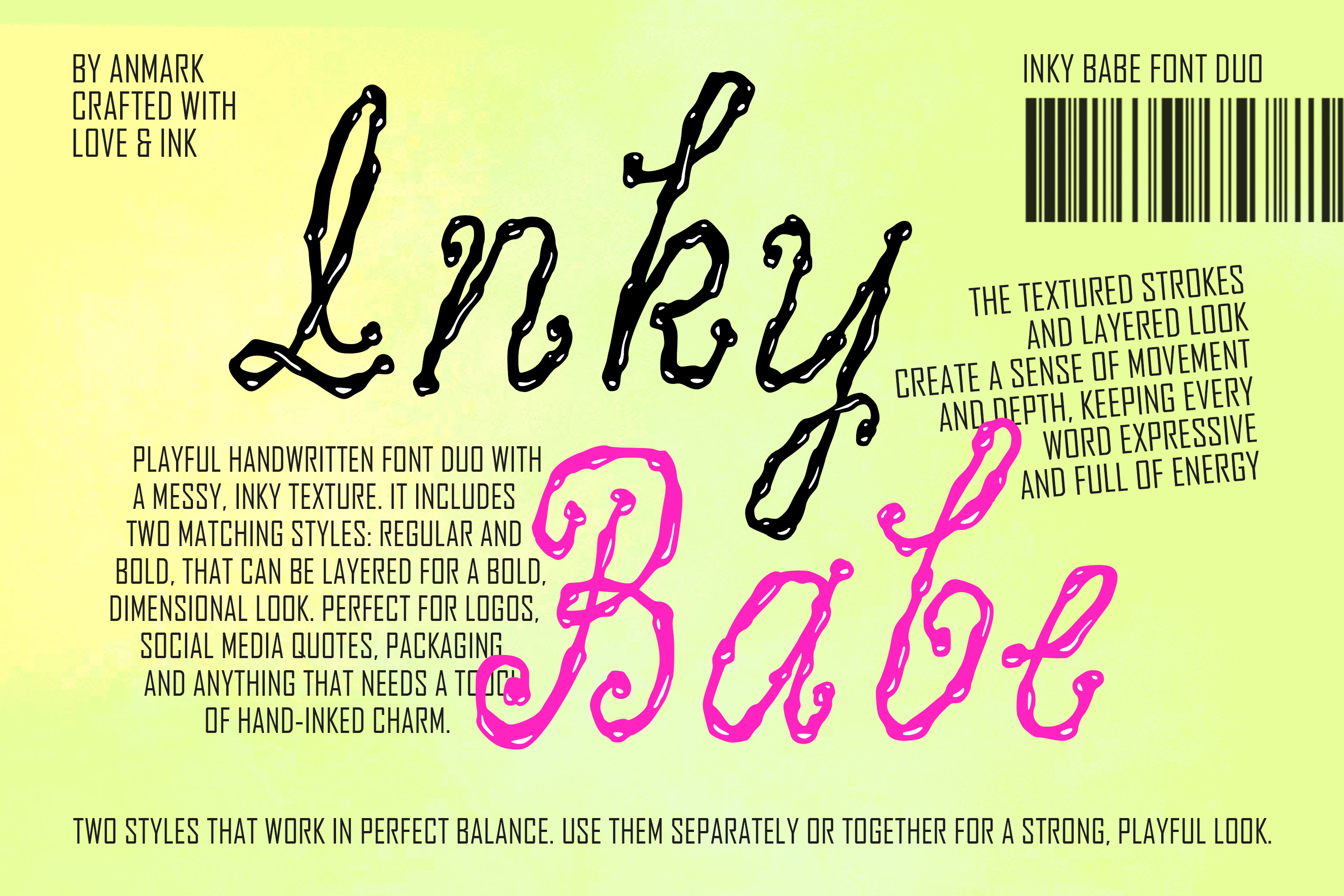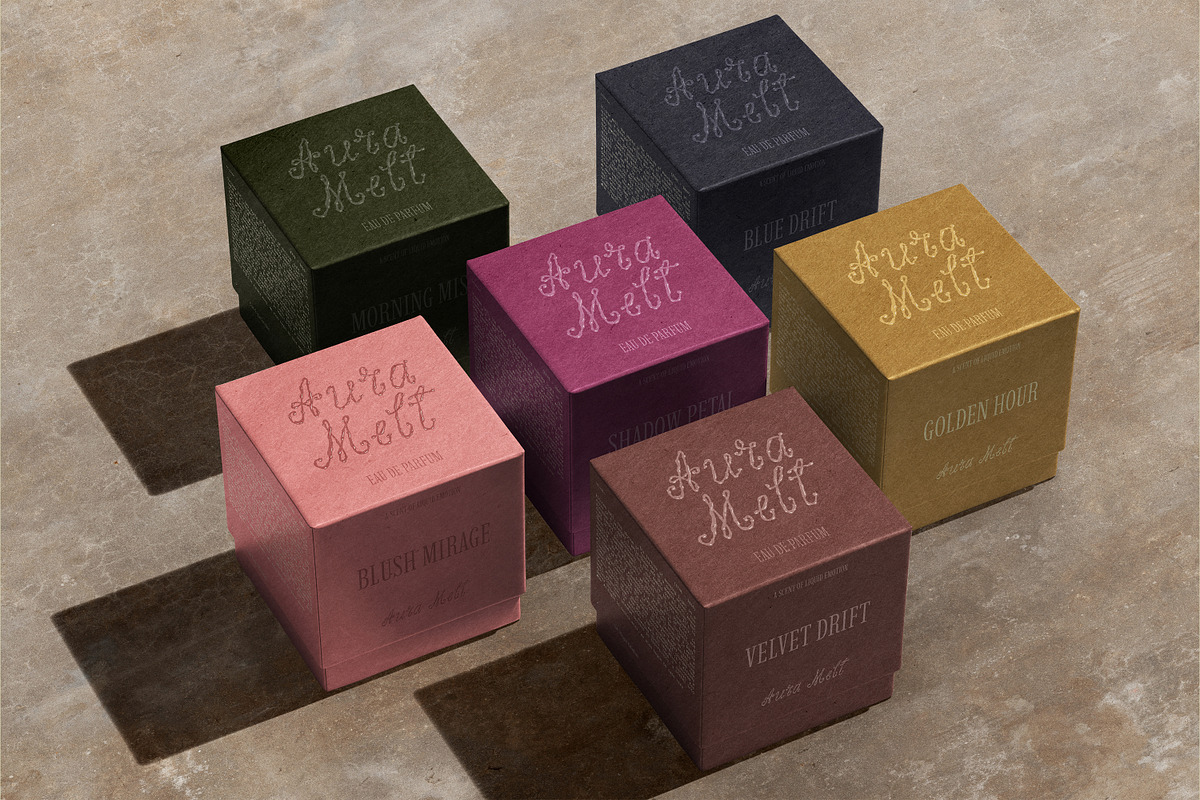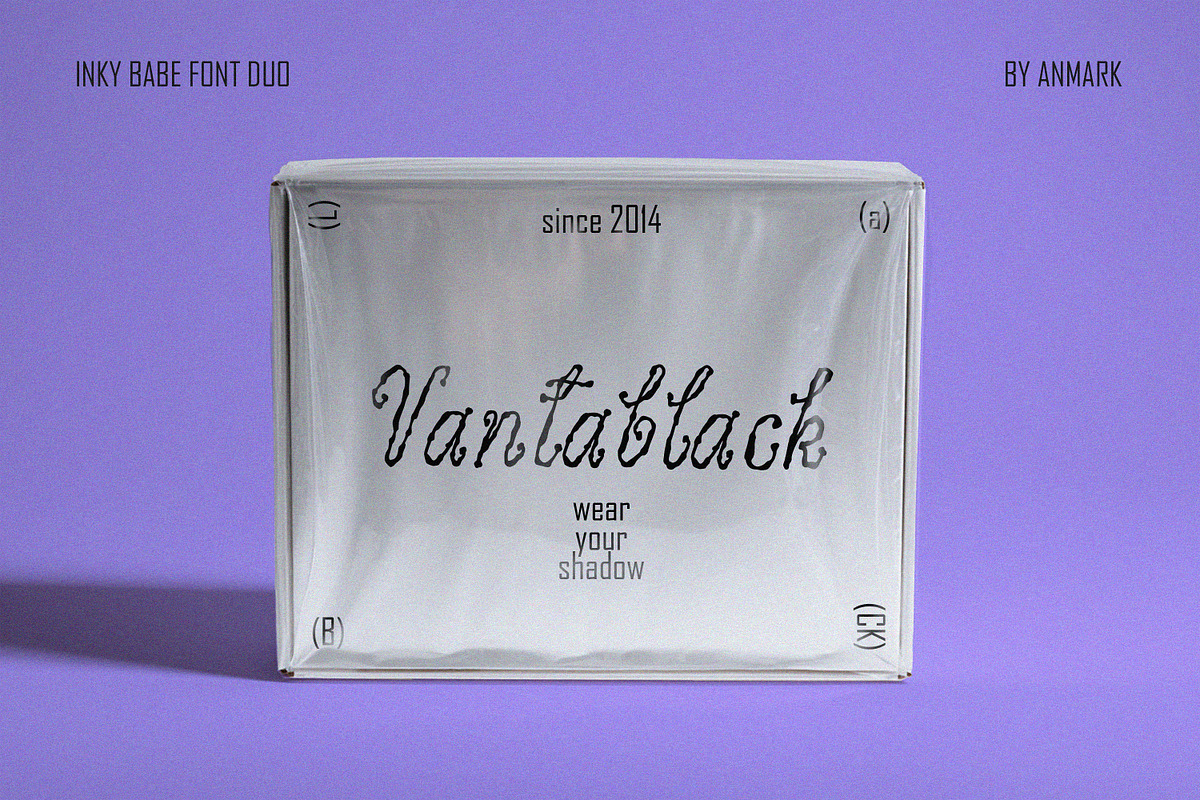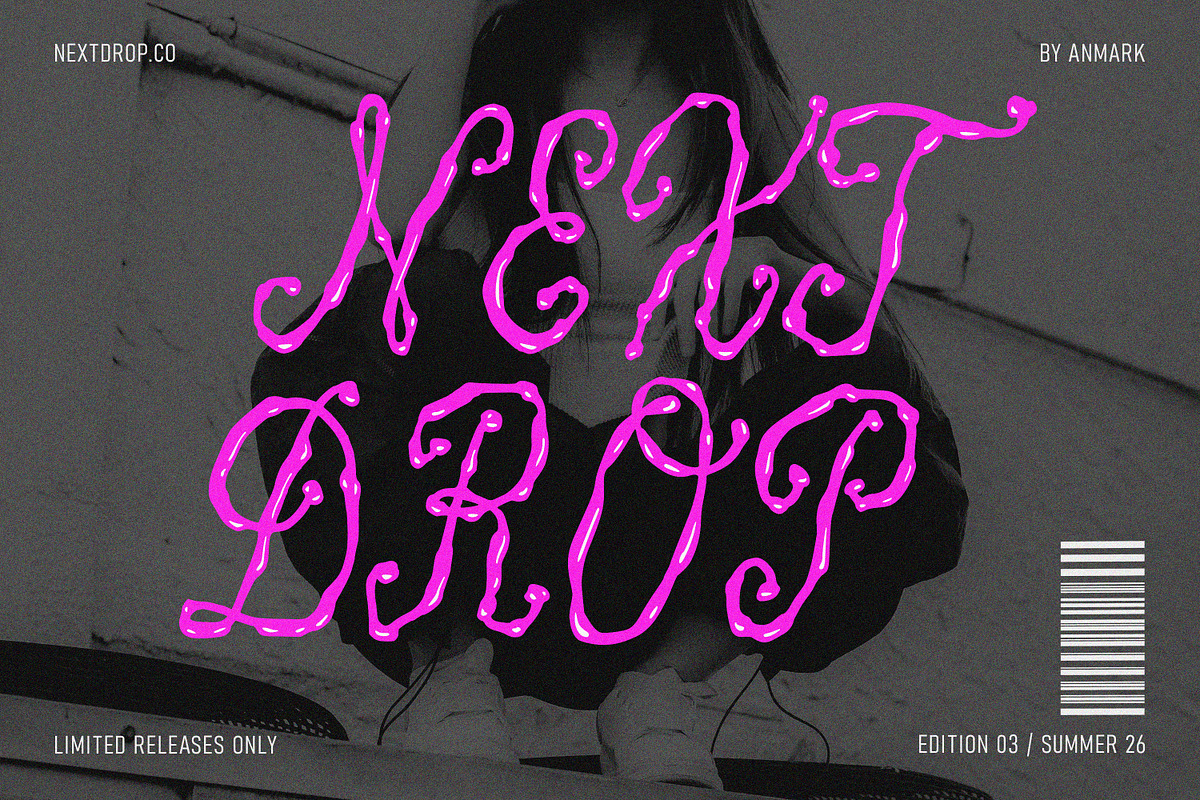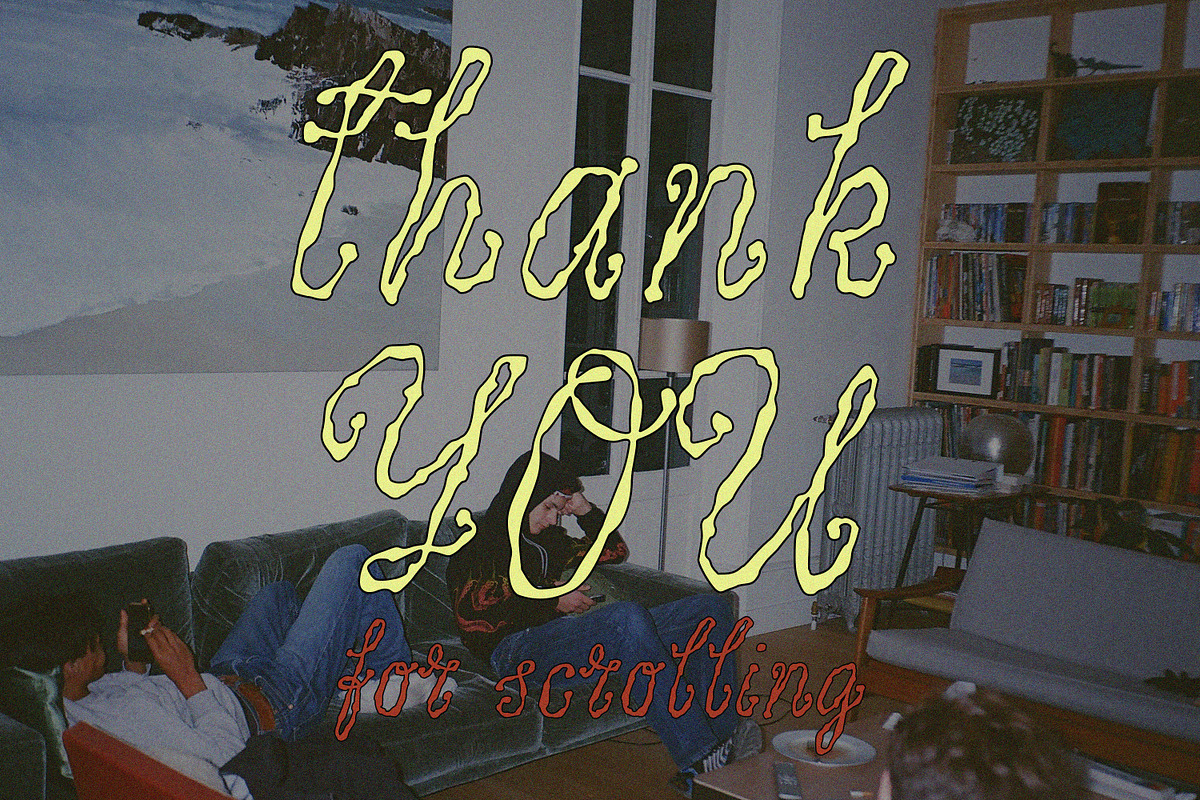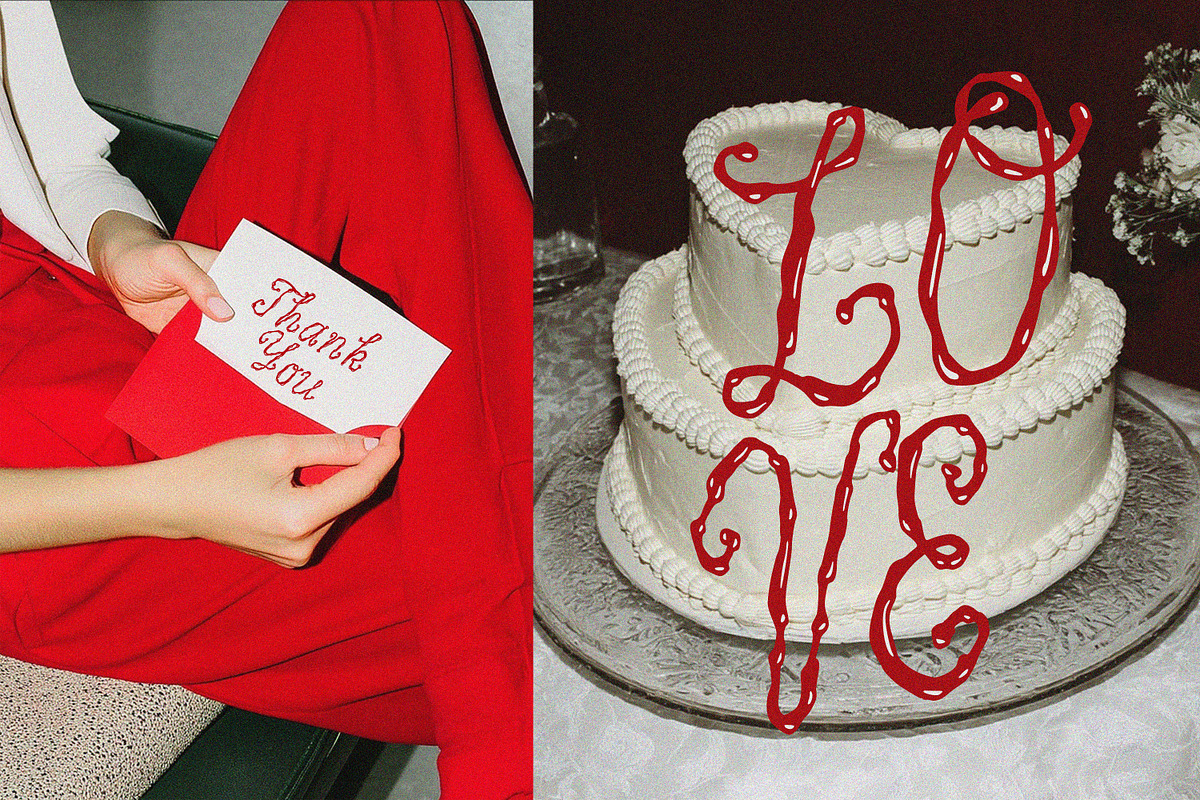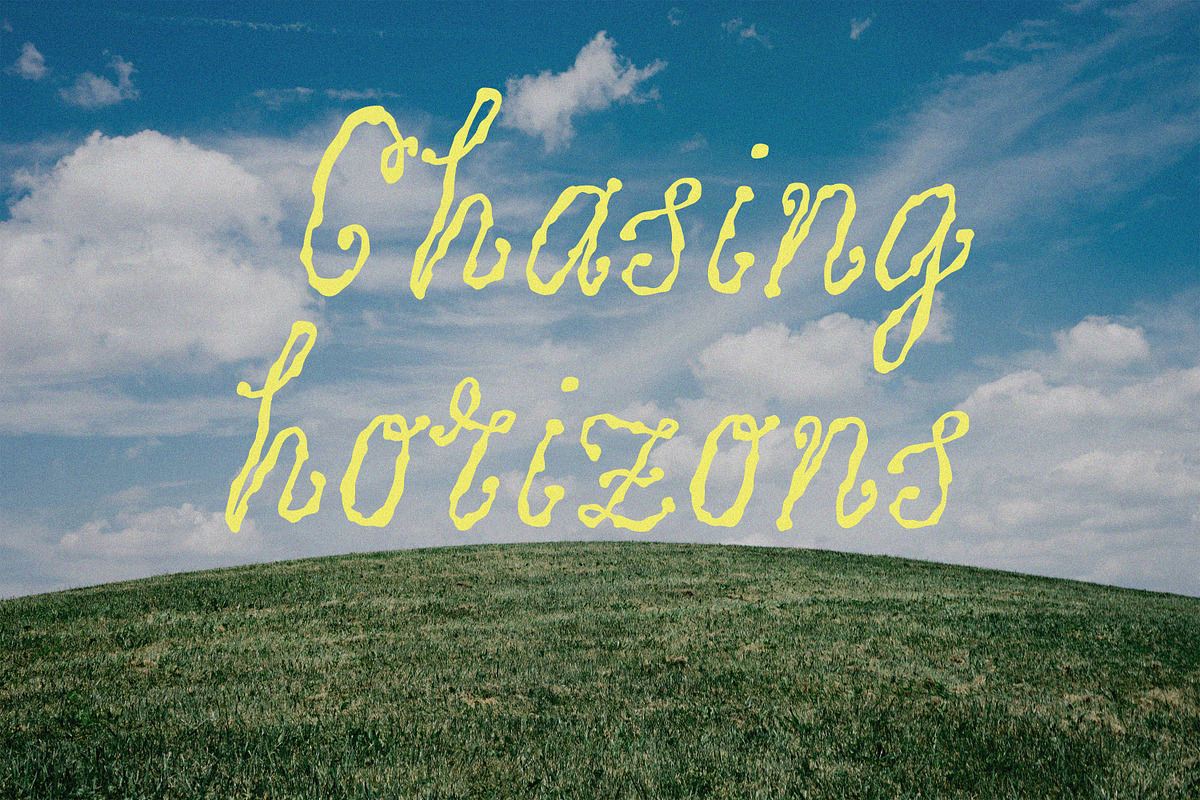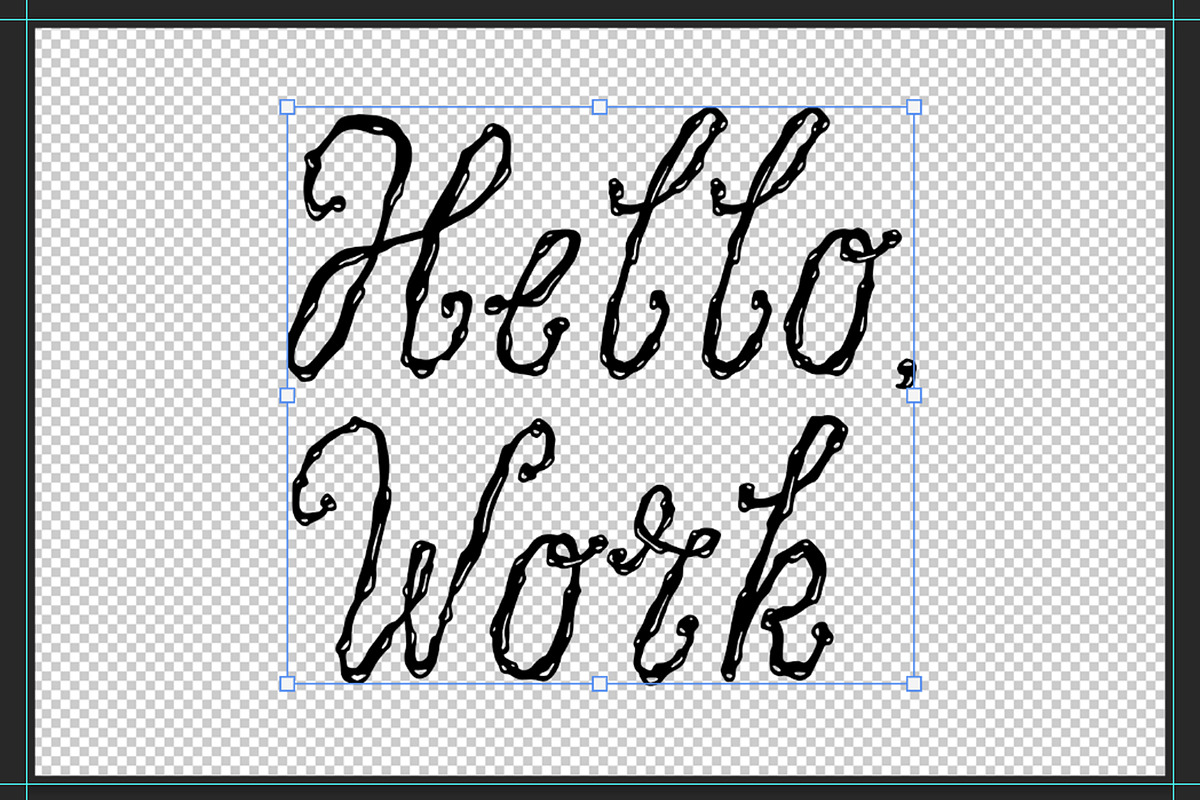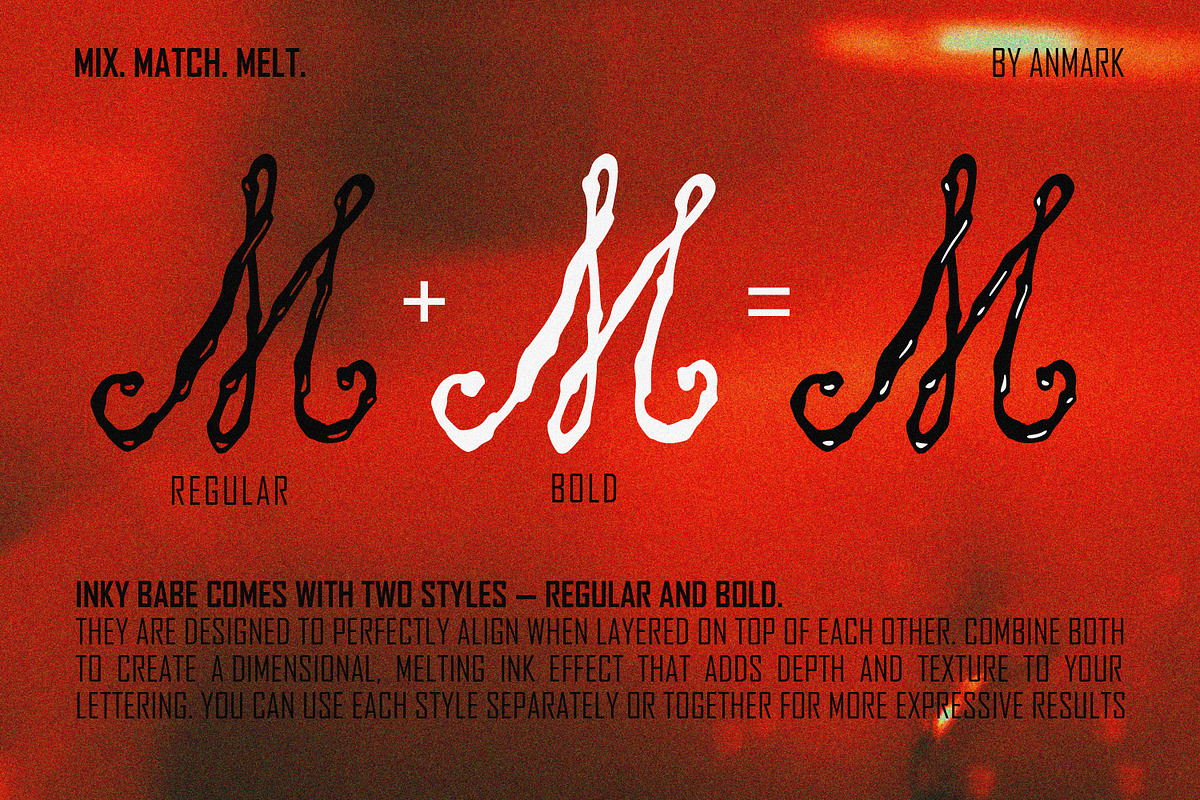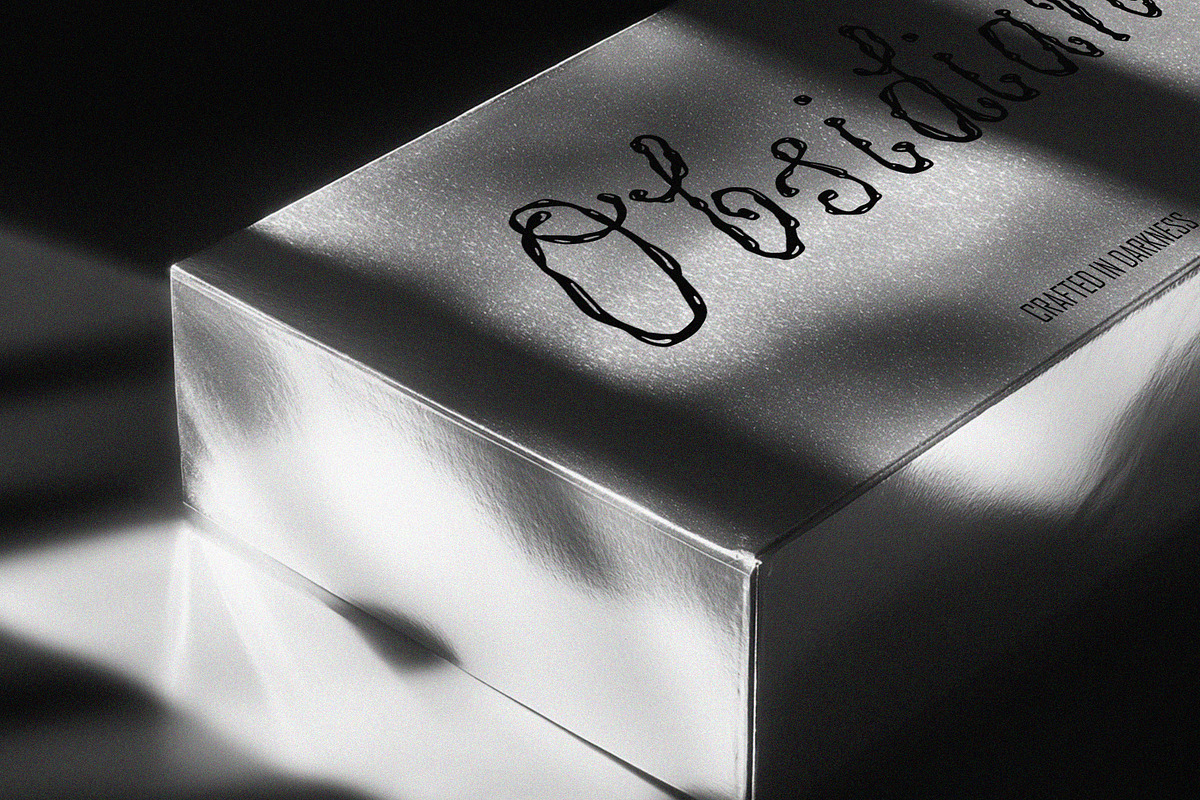
Inky Babe Messy Liquid Font Duo
Inky Babe Messy Liquid Font Duo is a lively, hand-crafted font duo with a bold, inky texture that feels spontaneous and full of character. With two matching styles - Regular and Bold that can be layered to create a striking, dimensional effect, this font turns ordinary text into something dynamic and expressive.
Its messy, flowing strokes give every word a sense of movement and personality, perfect for designs that need an artistic, handcrafted vibe.
Ideal for: logos, social media posts, packaging, wedding invitations, greeting cards, branding, and any project that thrives on a playful, fluid, inky aesthetic.